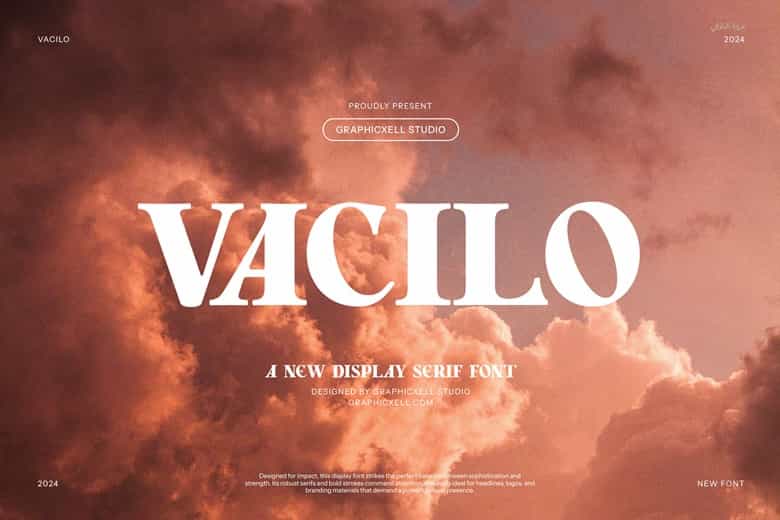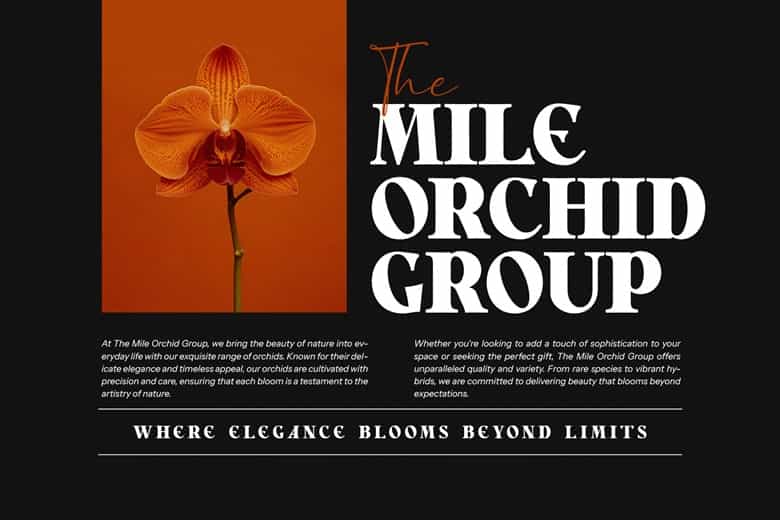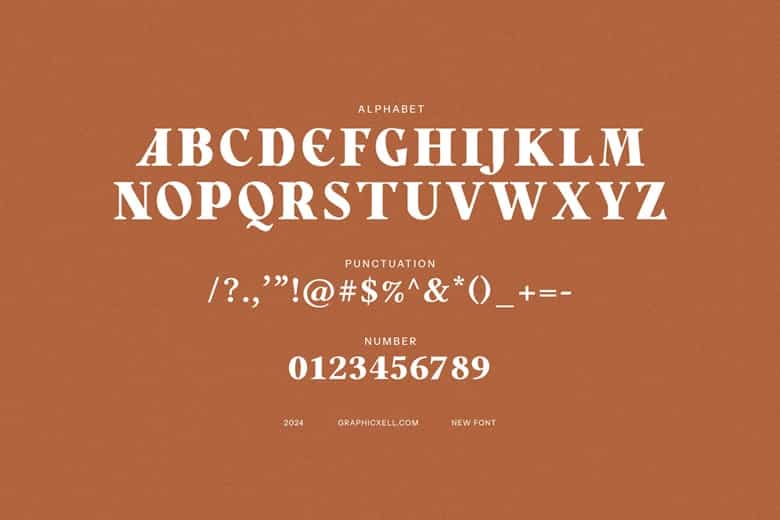
Vacilo is a new contemporary serif font that provides sophistication at the contemporary world. It is not only stylish but it looks pleasant as well.. What makes it interesting is that there are some curves that are better to observe, giving the kind of elegant appearance. The classy ligature also turns into one of its decorative features and selling points.